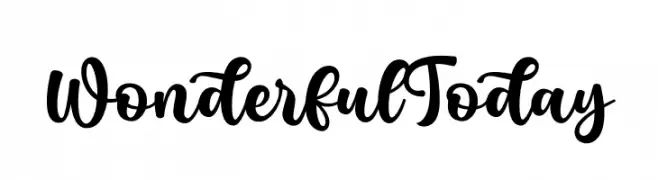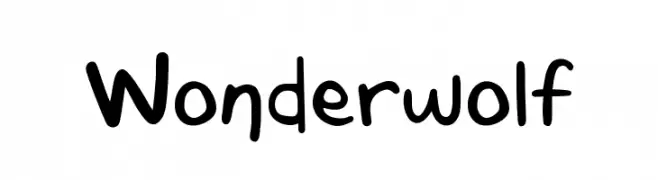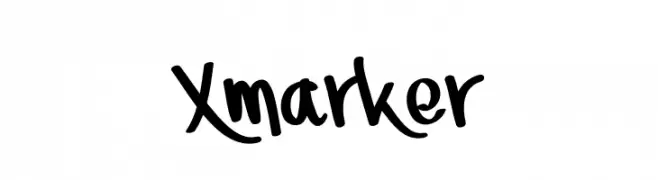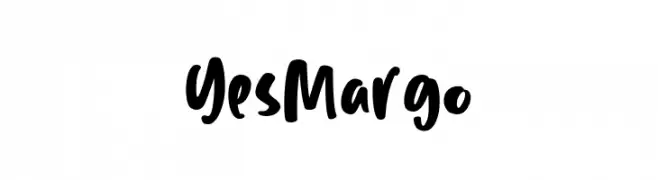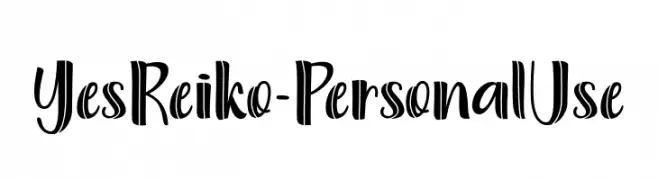
A flowing, elegant script font with a natural handwritten style.
A playful, cursive font with elegant loops and a whimsical charm.
A flowing, cursive font with interconnected letters and a playful elegance.
A fluid and elegant script font with a handwritten appearance.
A bold, geometric font with a 3D striped effect, ideal for impactful headlines.
A bold, playful handwritten font with a friendly and energetic style.
A lively and expressive handwritten font with dynamic strokes.
A bold, playful handwritten font with rounded strokes and a dynamic flow.
A playful and artistic font with bold, expressive letterforms and a dynamic style.